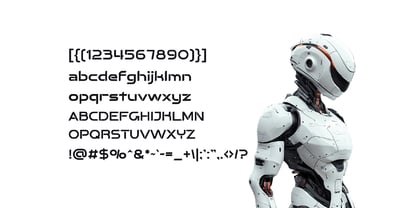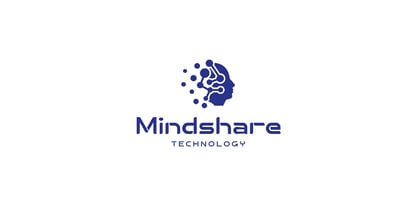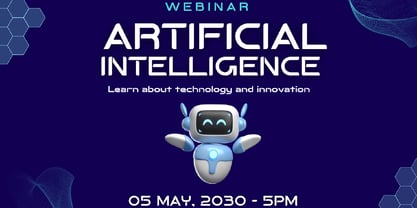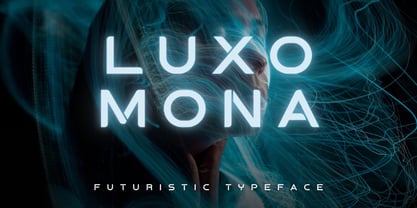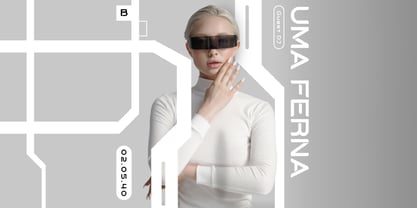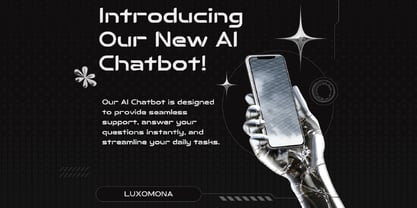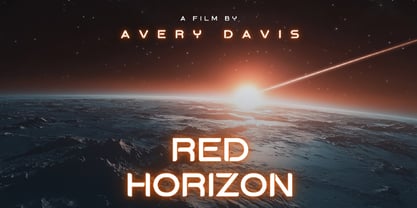
Luxomona
The Luxomona Font Family was designed by Igor Ovsyannykov and published by Hipfonts. Luxomona contains 1 styles. More about this family
Step into the future with Luxomona, a cutting-edge typeface inspired by artificial intelligence, sleek technology, and modern innovation. Designed with style, precision, and ultimate legibility, Luxomona merges futuristic aesthetics with functional elegance, making it the perfect choice for brands that dare to lead.
Whether you're crafting bold branding, high-tech flyers, captivating posters, sleek UI designs, or standout social media graphics, Luxomona adapts effortlessly to any digital or print project. With its clean lines, contemporary curves, and futuristic edge, this typeface embodies the perfect synergy between AI and human creativity.
Elevate your designs with Luxomona—because the future deserves a typeface as advanced as your vision.